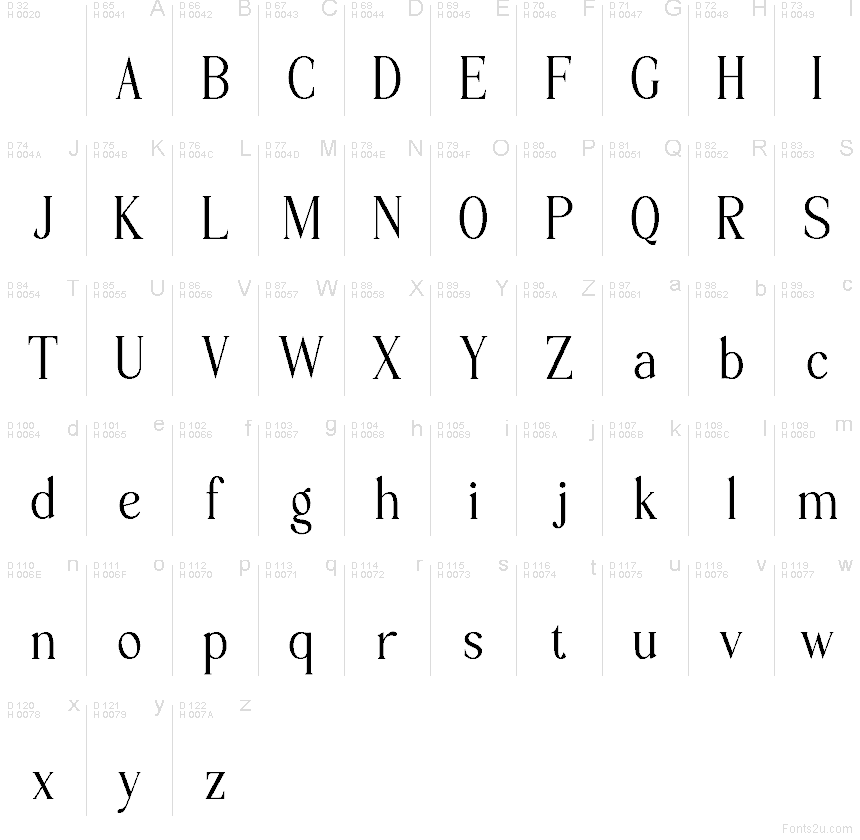
Varona Regular
Varona font by Achmad Yani is a free serif typeface that feels both literary and theatrical, with letters that look almost carved rather than drawn. The tall, sweeping forms and slightly compressed rounds give it a poised, editorial voice, while the sharp, tapered details add a subtle drama on the page. It reads as if it belongs on a book spine or a poster for a classic play—refined, but not stiff.
Using Varona, this free font shines on book covers, magazine titles, boutique branding, wine labels, poster work, and sophisticated website hero text. The rhythm between its bold verticals and soft curves pulls the eye through a line, making short phrases and names especially memorable. Pair Varona with a clean, neutral sans serif for body text and let Varona handle headlines at larger sizes where its sculpted character can really show.